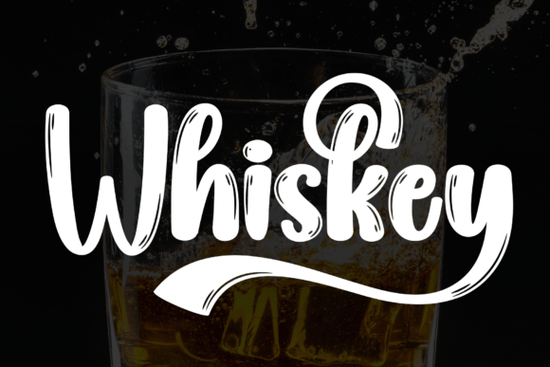
If you are looking for a casual typeface that feels warm and approachable, Whiskey Font delivers exactly that. This sweet, friendly handwritten style brings a natural flow to everything from wedding invitations to small business packaging. Designers and crafters often choose scripts like this because they add a personal touch without looking overly polished or stiff. Whether you are setting up a print-on-demand store, designing social media quotes, or cutting vinyl for custom tumblers, a relaxed handwriting typeface can make your work feel more human.
What makes this handwritten typeface stand out?
Not all script fonts are created equal. Some feel too rigid, while others become difficult to read at smaller sizes. This typeface strikes a balance between playful and legible. The letterforms have gentle curves and organic spacing that mimic real pen strokes. That natural variation helps your designs avoid a flat, mass-produced look. You will notice how the uppercase and lowercase characters interact smoothly, making it easier to create balanced headlines and short phrases without constant manual kerning.
Which projects work best with a casual script?
Because of its friendly personality, this font adapts well to a wide range of creative work. Here are a few practical applications where it consistently performs well:
- Print-on-demand merchandise: T-shirts, tote bags, and mugs featuring short quotes or brand names
- Small business branding: Thank you cards, packaging stickers, and shop banners
- Event stationery: Bridal shower invites, birthday party details, and casual wedding menus
- Digital content: Instagram story overlays, Pinterest graphics, and blog featured images
- Crafting and cutting: SVG projects for Cricut or Silhouette machines, especially when working with heat transfer vinyl
When you keep your text short and give the letters room to breathe, the style shines without overwhelming the rest of your layout.
How should I pair it with other typefaces?
Scripts rarely work well when paired with other decorative fonts. The safest approach is to combine this handwritten style with a clean sans-serif or simple serif for body text. If you want to experiment with other playful scripts for specific themes, you might test it alongside the melon sorbet font for summer graphics, or try the pinky melon font when designing lighthearted party prints. For travel journals or wedding suites, the honeymoon vacation font offers a complementary vibe, while the behappy font works nicely on quote cards. Let one font lead and use the second sparingly.